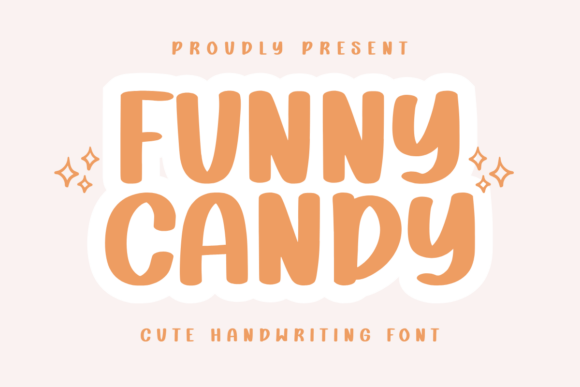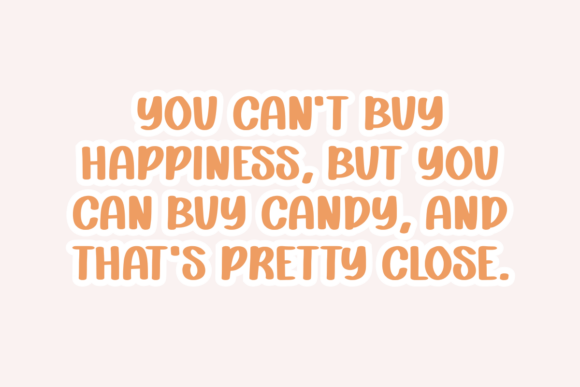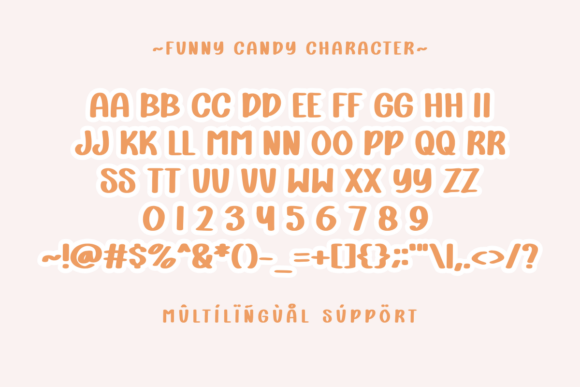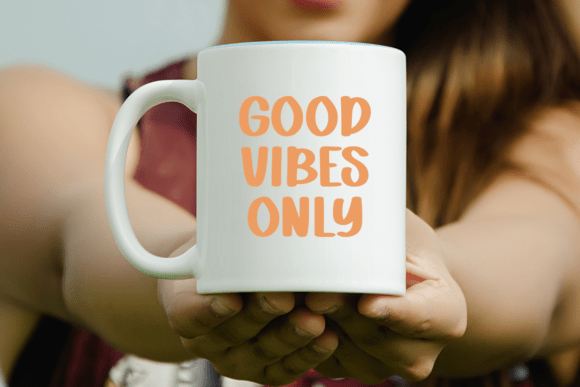
Funny Candy Font: A Cute Handwritten Font for Craft Projects!
About the Funny Candy Font
We are excited to introduce Funny Candy Font, a must-have typeface for any serious designer. Funny Candy is a charming handwriting font with a clean yet whimsical vibe. Featuring smooth curves and a hand-drawn feel, this font is perfect for romantic designs, wedding invitations, heartfelt branding, and elegant social media graphics. Its versatile style pairs a modern aesthetic with a touch of playful warmth, making it ideal for creative and love-inspired projects.
Funny Candy excels in applications requiring a touch of lighthearted elegance, such as logos for boutiques, short-form social media content, or packaging for sweet treats and artisanal products. Headlines and short text blocks also benefit from its charming character. However, its whimsical nature makes it less suitable for body text or UI elements where legibility over long stretches is crucial.
This font’s playful yet refined personality pairs well with clean sans-serif fonts like Open Sans for a balanced contrast, or a more geometric sans-serif like Montserrat for a modern feel. For a touch of classic sophistication, consider pairing it with a subtle serif like Lato. Avoid pairing it with overly decorative or highly contrasting fonts that might detract from its unique charm.
Its core personality is best described as friendly and approachable, with a touch of playful sophistication. Brands seeking to convey warmth, approachability, and a hint of whimsy will find Funny Candy an excellent choice.
Funny Candy Font Usage Examples
Funny Candy Font Example